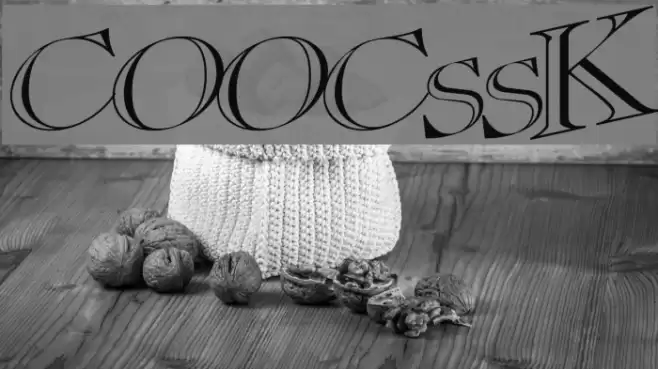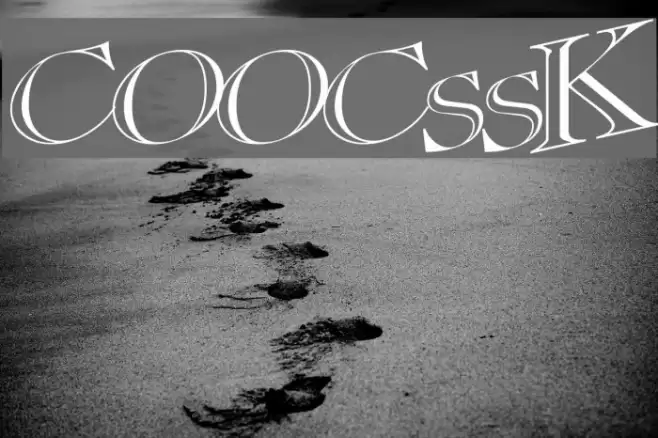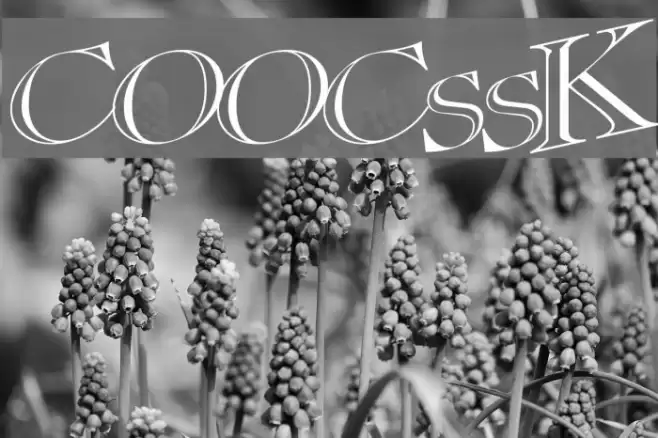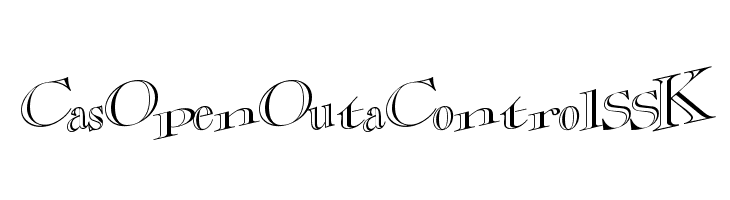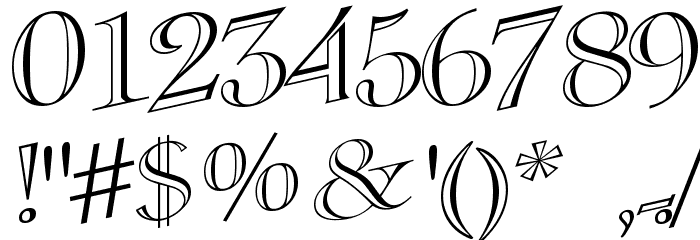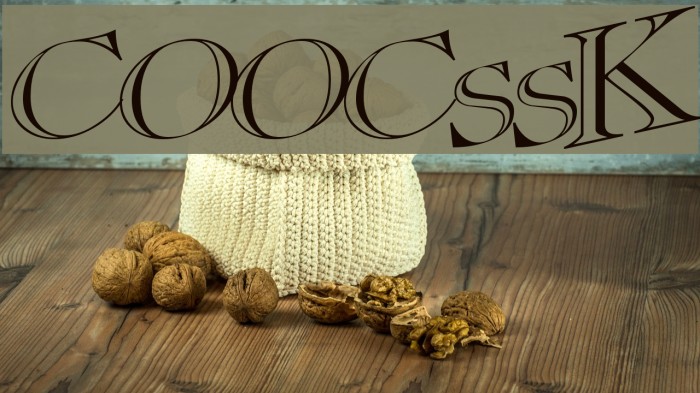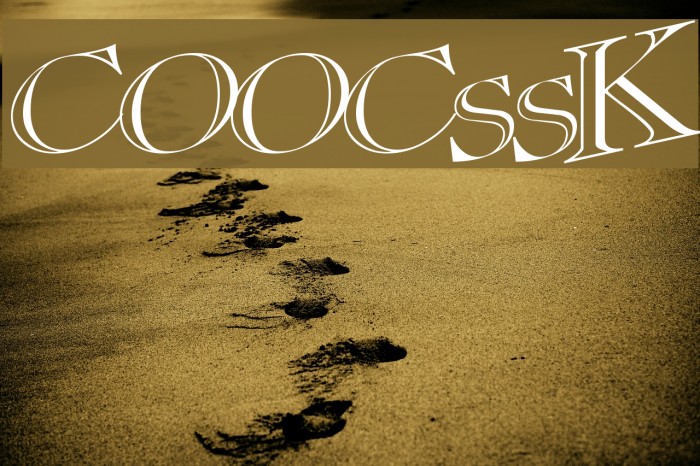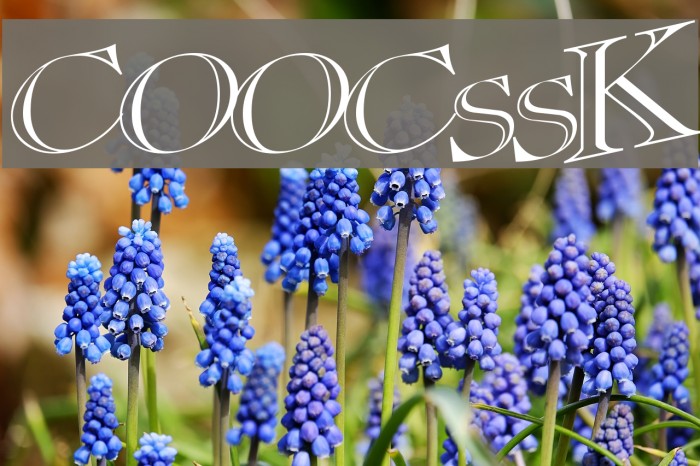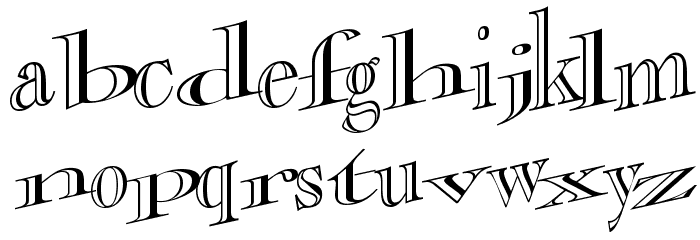
CasOpenOutaControlSSK Font
CasOpenOutaControlSSK Description
This font features a unique and playful design with exaggerated serifs and a whimsical flair. The characters are outlined, giving them a hollow appearance that adds to the decorative nature of the typeface. The uppercase letters are bold and dynamic, with varying stroke widths that create a sense of movement and energy. The lowercase letters maintain this lively style, with some characters featuring unexpected curves and angles. Numbers and special characters are equally expressive, making this font suitable for creative and artistic projects. The overall aesthetic is both modern and vintage, offering a distinctive look that stands out.
A playful, outlined serif font with dynamic strokes and whimsical flair from Uncategorized fonts.